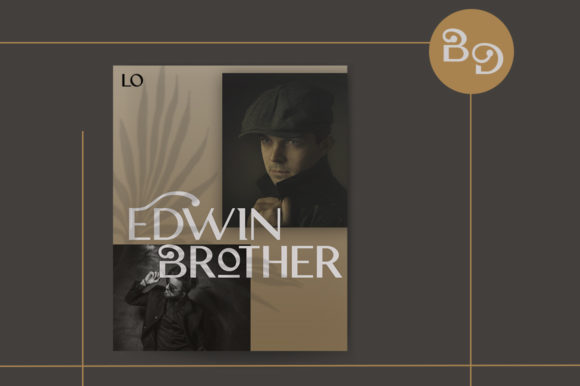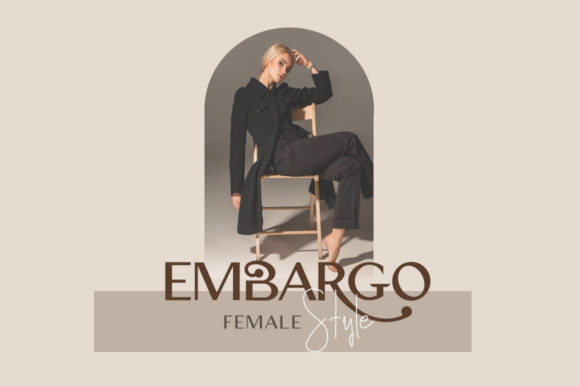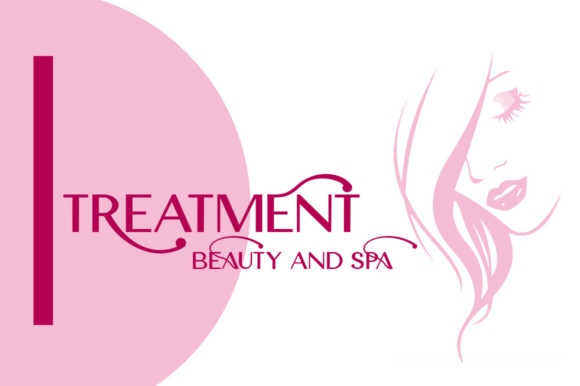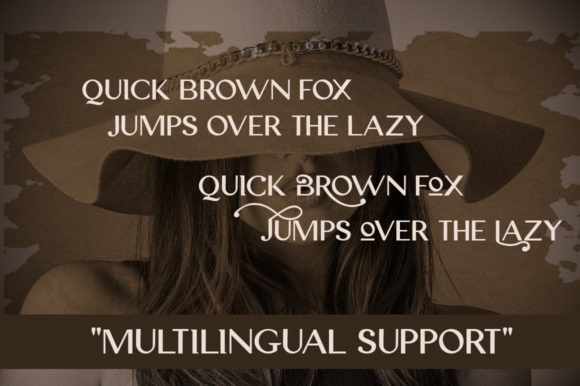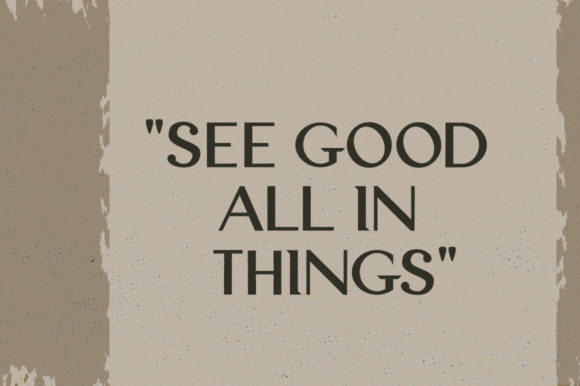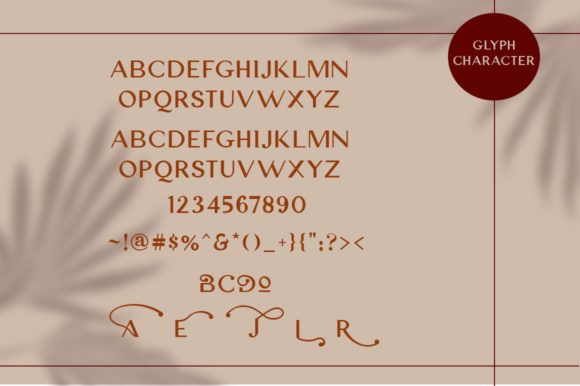
A New Breath of Fresh Air in Design: Aerobic Font
Have you ever stared at a blank page, trying to find the perfect font to bring your design to life? The struggle is real, but what if I told you there’s a game-changer waiting to elevate your work? It’s in the form of a modern and elegant sans serif font that’s about to become your new best friend.
Meet the Aerobic Font, a bold and unique addition to your design arsenal. Its purpose is to add a touch of sophistication and style to your projects, making them stand out from the crowd. Whether you’re a seasoned designer or just starting out, this font is a valuable asset that will take your work to the next level.
With Aerobic Font, you’ll be able to create designs that are not only visually stunning but also convey a sense of professionalism and elegance. So, are you ready to give your designs a boost of confidence and make them truly unforgettable?
Aerobic Font Key Features
- Font Style: Aerobic Font is a sans-serif font designed to promote readability and is suitable for various digital and print media.
- Unique Characteristics: The font’s unique characteristics include a clean and modern design, with a focus on legibility and readability, making it an excellent choice for digital and print media.
A Designer’s Review of Aerobic Font
Aerobic Font is a unique and playful typeface that attempts to capture the energy and dynamism of exercise. While it’s not without its flaws, I appreciate its creativity and willingness to break free from traditional font design.
- Aerobic Font’s dynamic letterforms are visually appealing and evoke a sense of movement.
- The font’s high x-height makes it highly legible, even at small font sizes.
- The font’s wide range of weights and styles allows for a high degree of customization.
- Aerobic Font’s irregular letterforms may not be suitable for all types of text, particularly body copy.
- The font’s creative flair may be overwhelming in certain contexts, making it difficult to read.
- The font’s wide range of weights and styles can be overwhelming to navigate.
Aerobic Font is a bold and eye-catching typeface that’s perfect for headlines, titles, and other attention-grabbing applications. However, it may not be the best choice for body copy or other types of text that require clarity and readability. Overall, I appreciate the font’s creativity and willingness to take risks, but I think it could benefit from a bit more refinement and attention to detail.
Aerobic Font is perfect for:
- Creating bold and eye-catching headings.
- Designing logos or branding for fitness or sports-related businesses.
- Adding a touch of playfulness to your designs.
Remember to use Aerobic Font in moderation to avoid overwhelming your design.